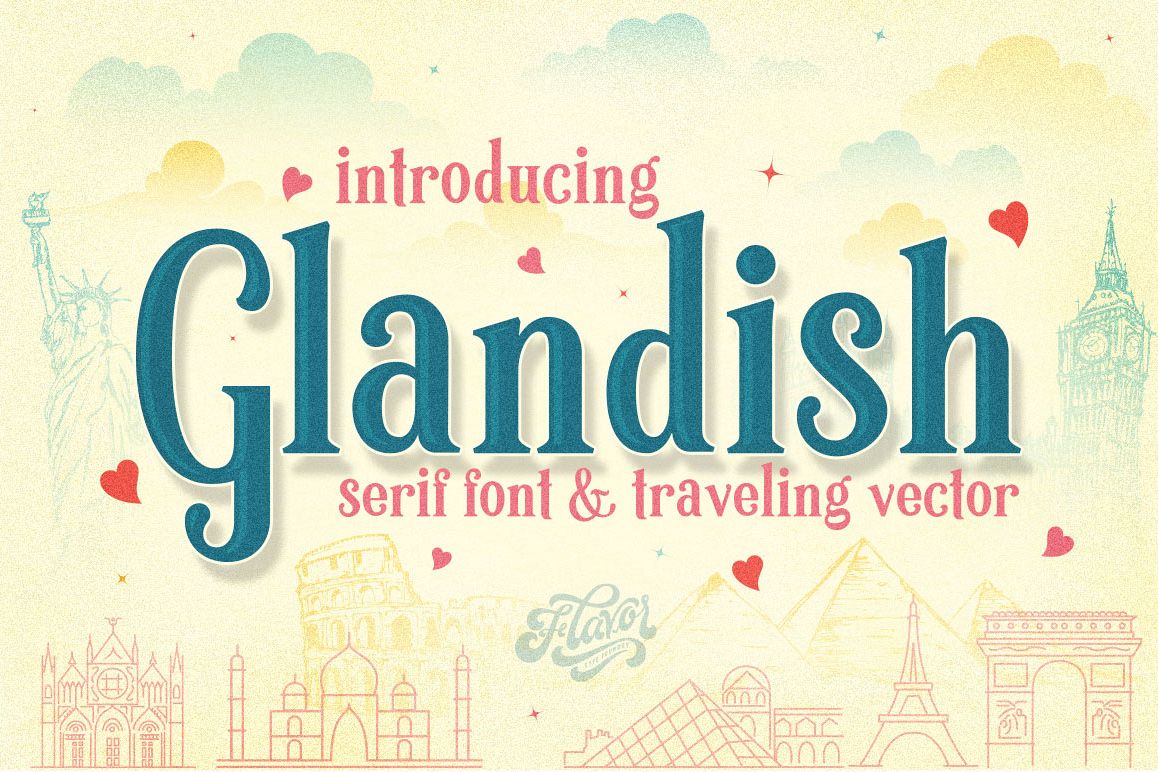
Glandish
Introducing Glandish Serif Font & Traveling VectorA Brand new fonts from Flavortype with the theme of travelling.
Based with serif fonts but with rethinking on the height on the lowercase to create this fonts more look enjoyable because when you need to travel, you need to enjoy with every moment :)
On the uppercase we've created with the same height, this will good when you are typing on the headline, highlight word or even firm words.
And when it combine with the lowercase, there will matches all the way without looks messy.Glandish absloutely comes with Vector Traveling bonus pack. 2 Options style you can use to make your design project more beautiful and eye catching. One with Monoline style, and one more with the sketched style like on our last image on the display.Thank You